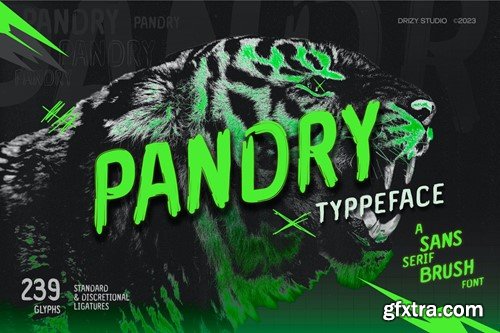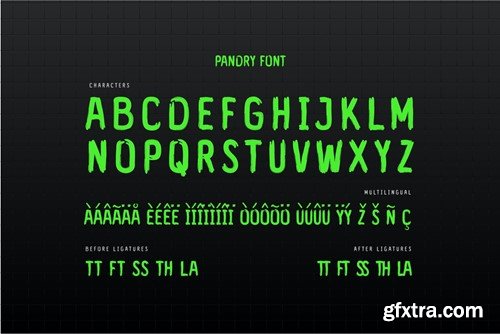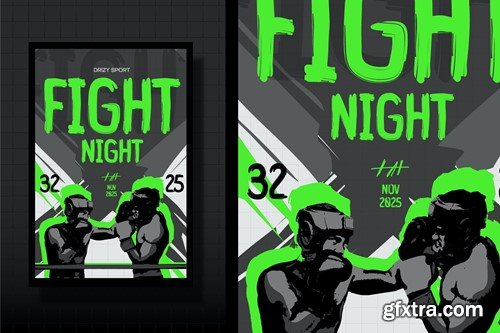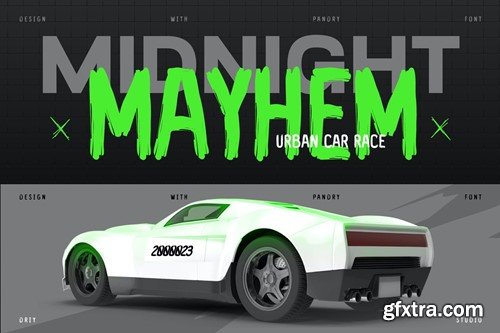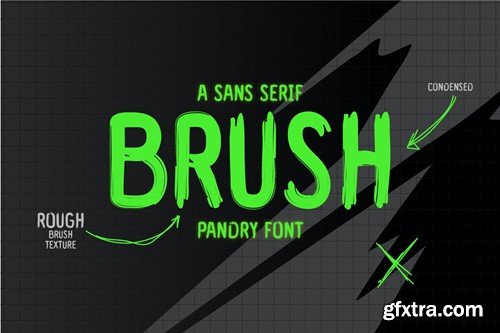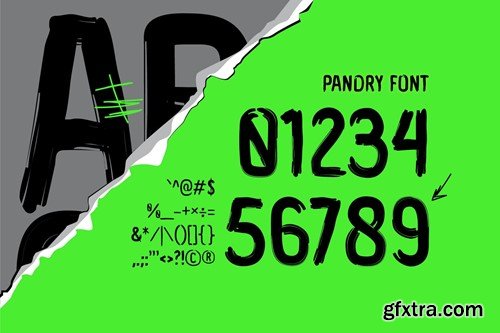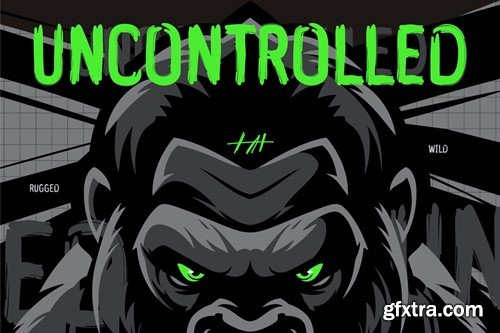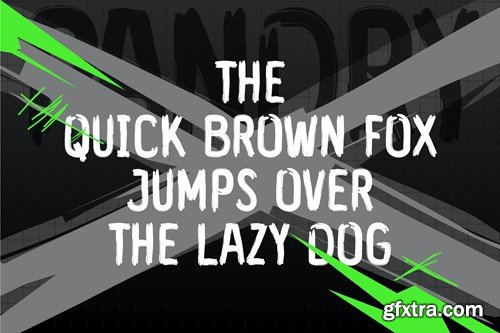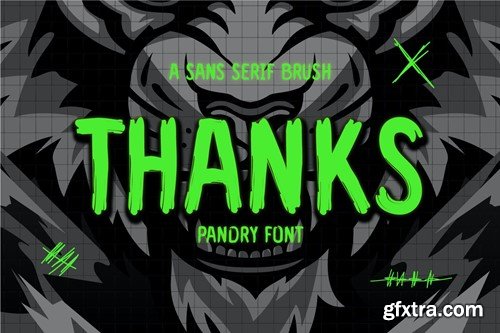
Pandry - Sans Serif Brush Font
Pandry - Sans Serif Brush Font Introducing Pandry a Sans Serif Brush Font that seamlessly blends modernity with a touch of artistic flair. Crafted with precision and attention to detail, Pandry brings a unique fusion of sophistication and informality to your typographic toolkit. Pandry features: Character Set Punctuation & Numbers Multilingual Support Ligatures File Included: OTF & TTF Elevate and explore the design possibilities with this brush font!